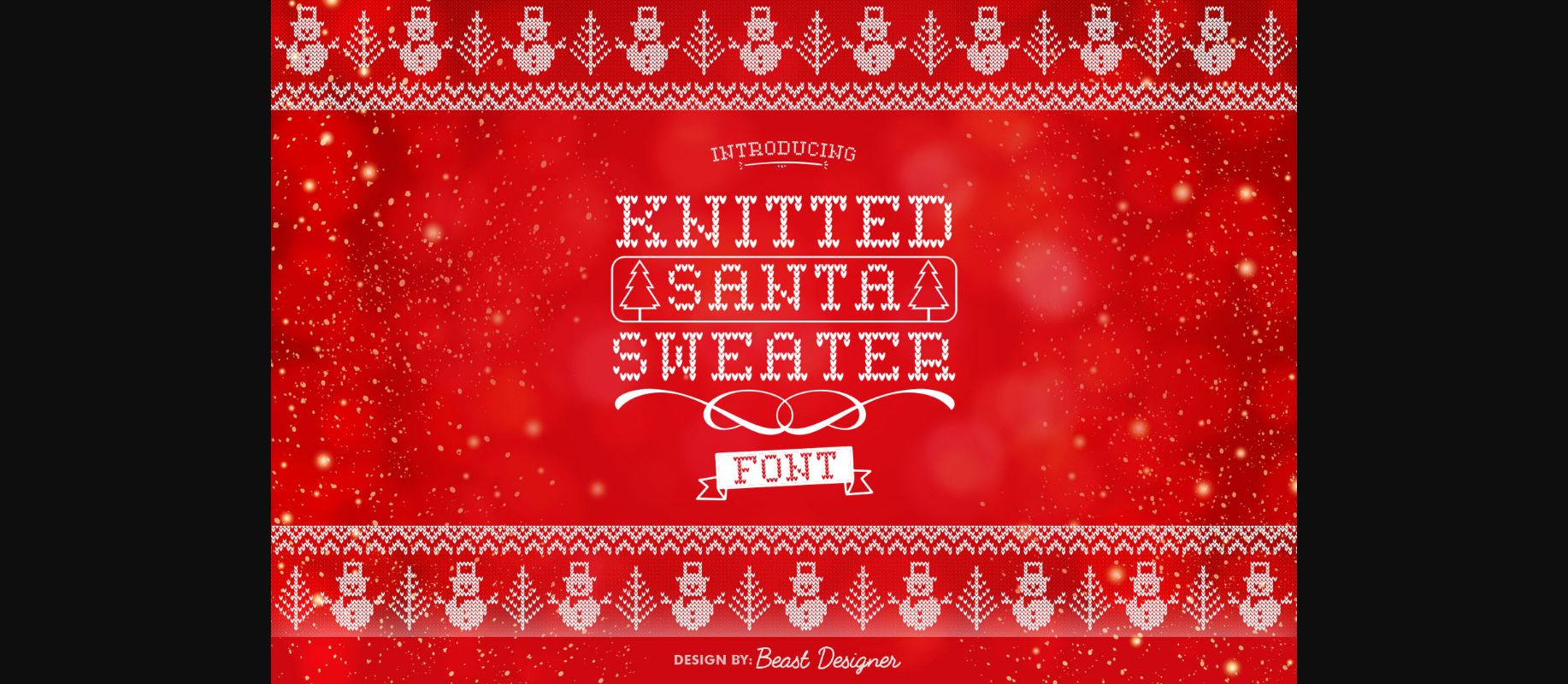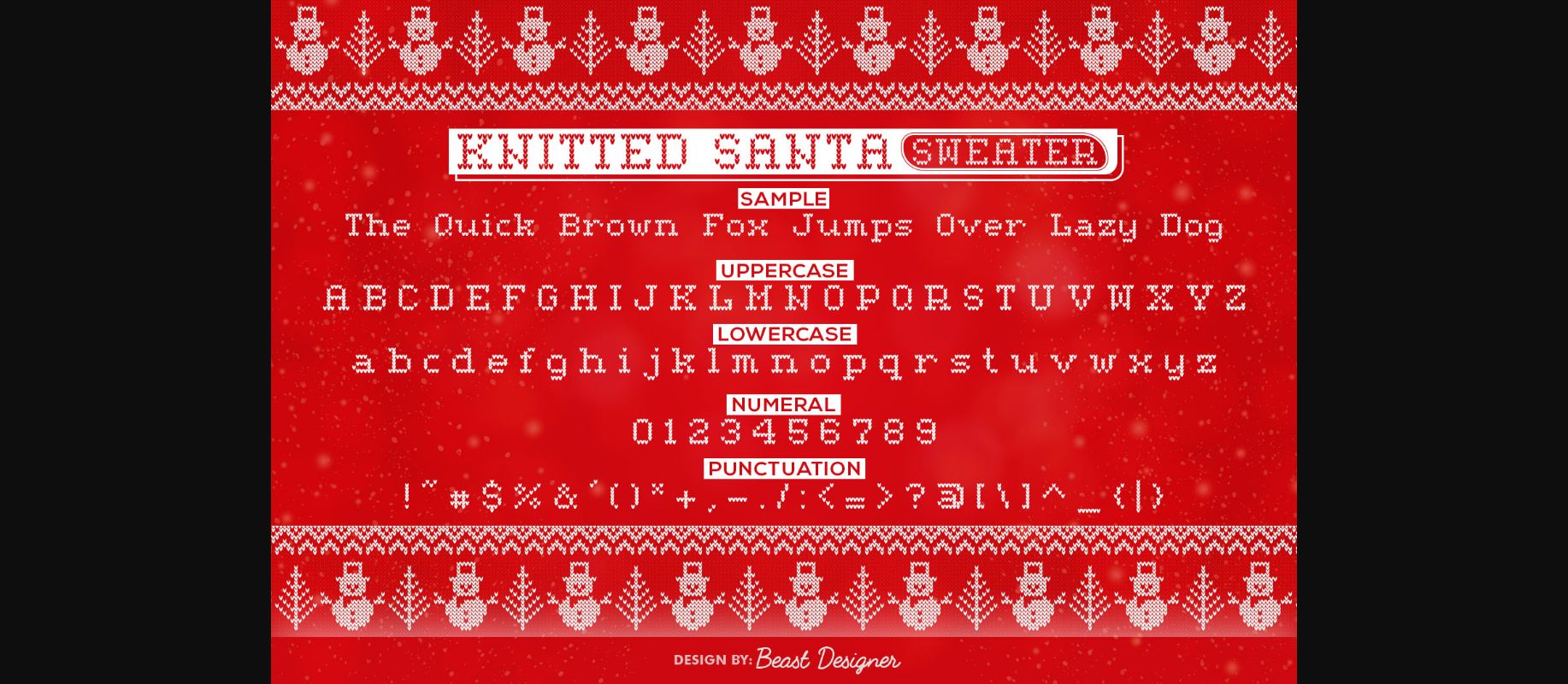
Knitted Santa Sweater Font
About Knitted Santa Sweater Font
Knitted Santa Sweater is an incredibly interesting knitted decorative font. Add it to your collection of holidays fonts and create your own unique Christmas designs.